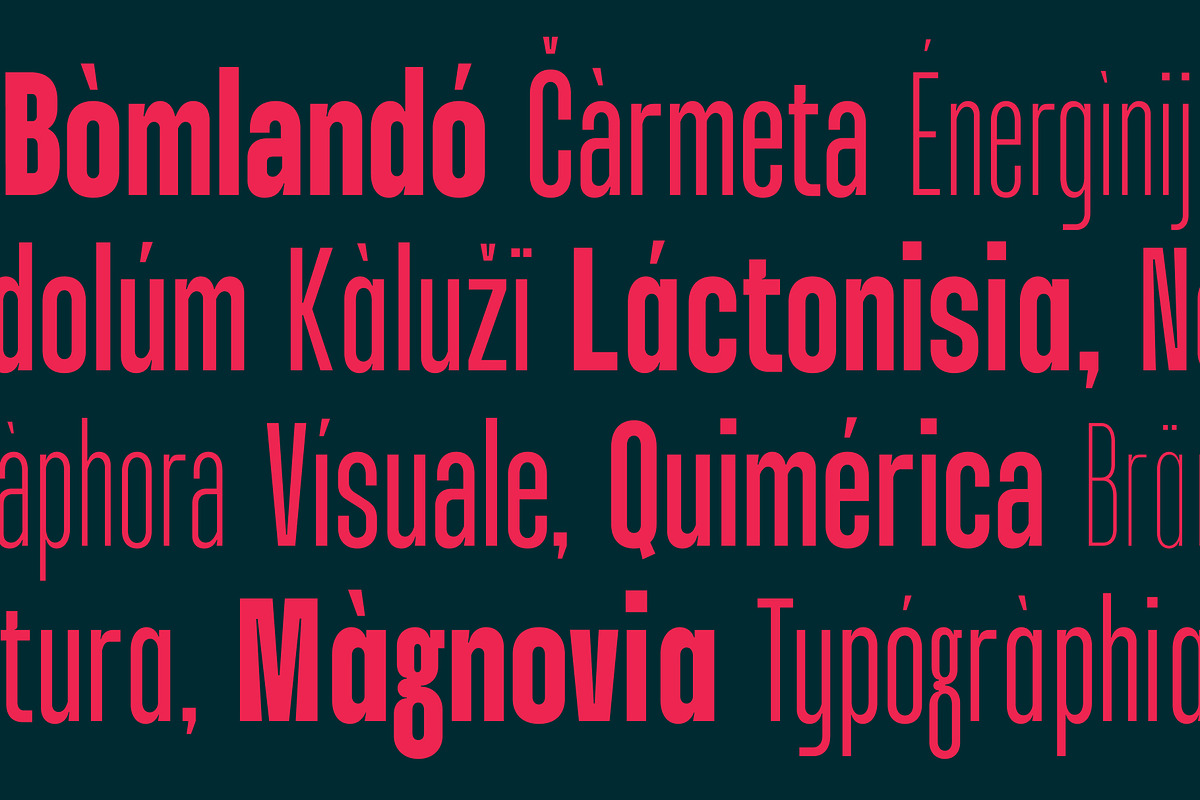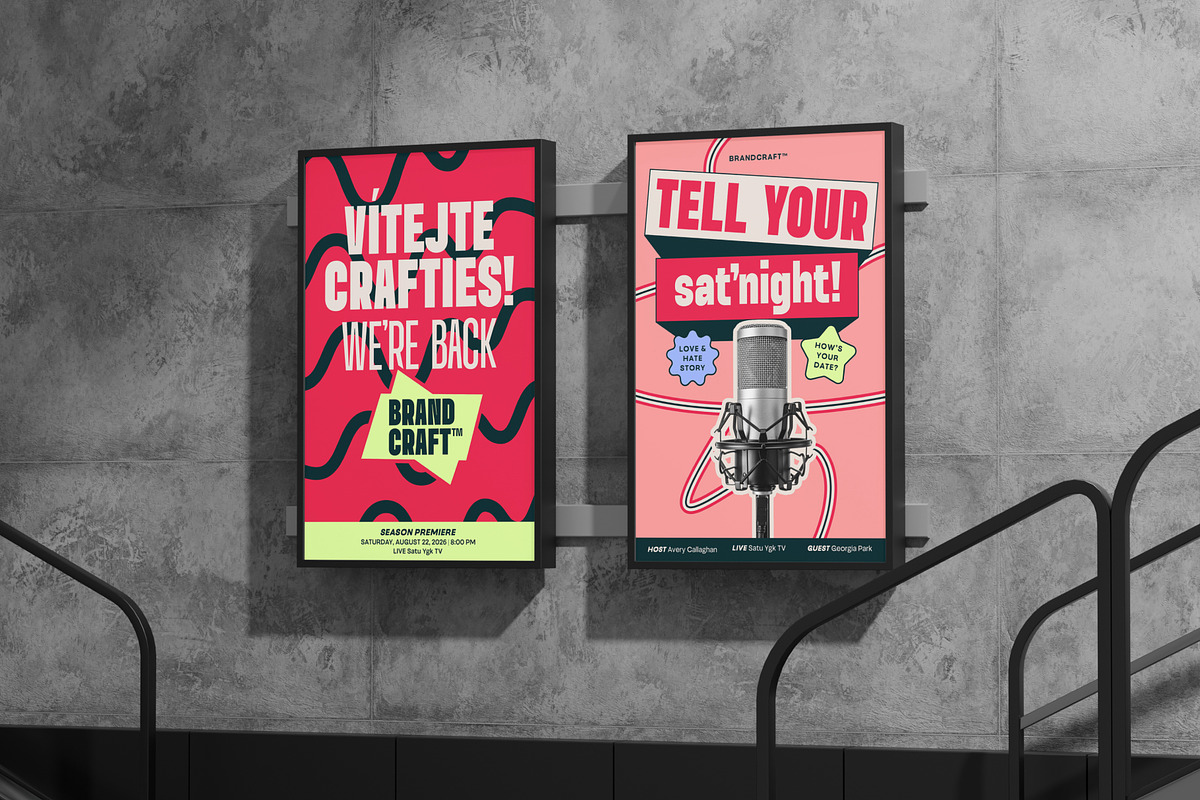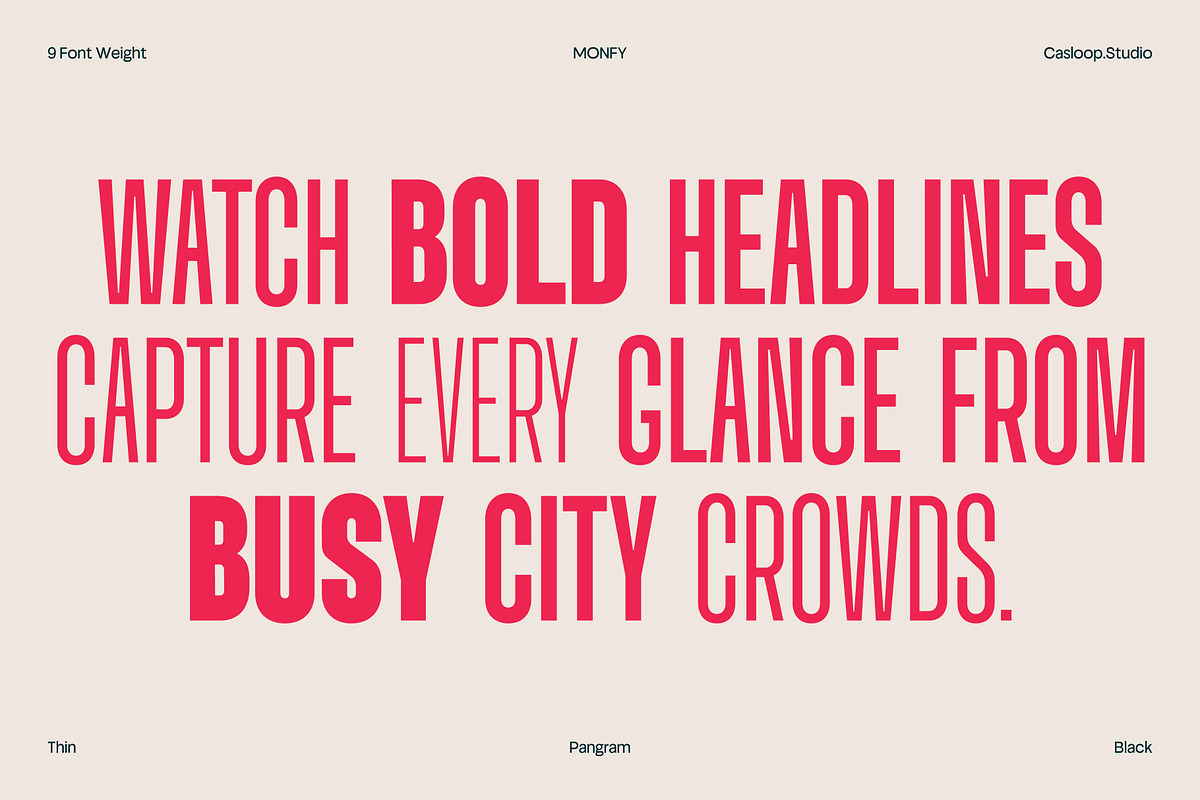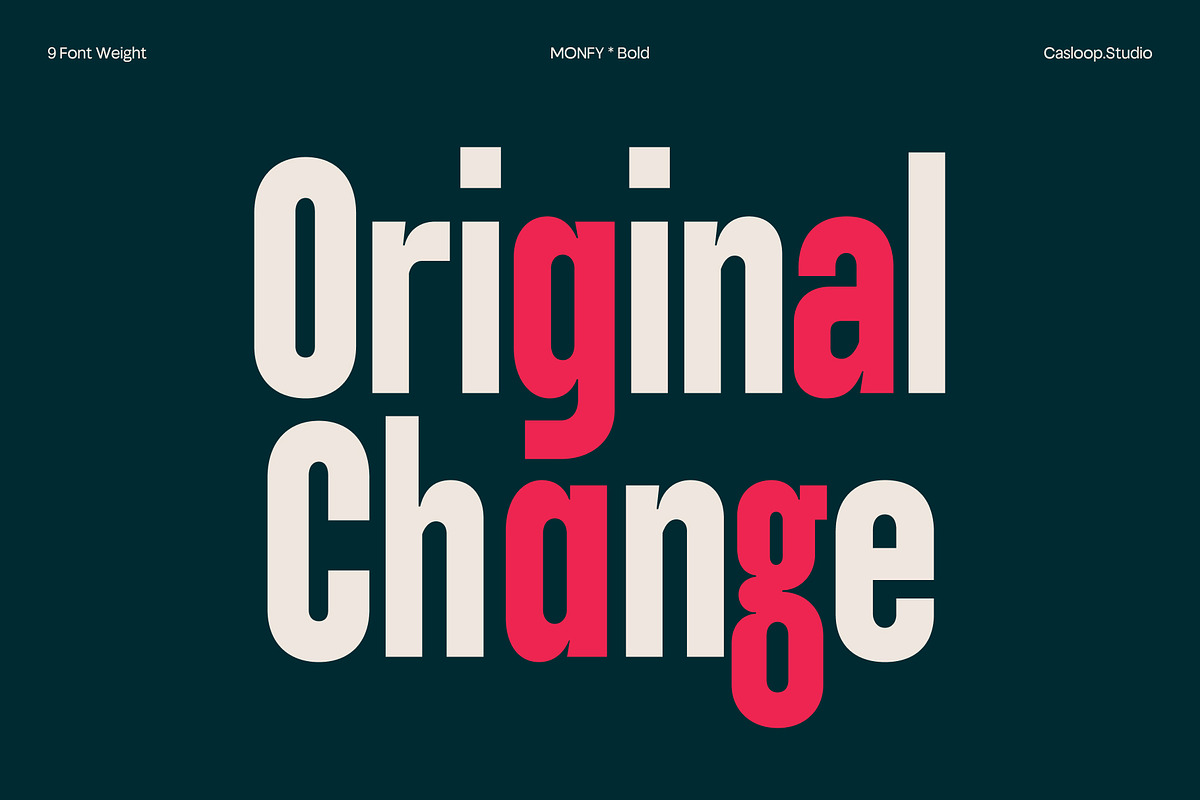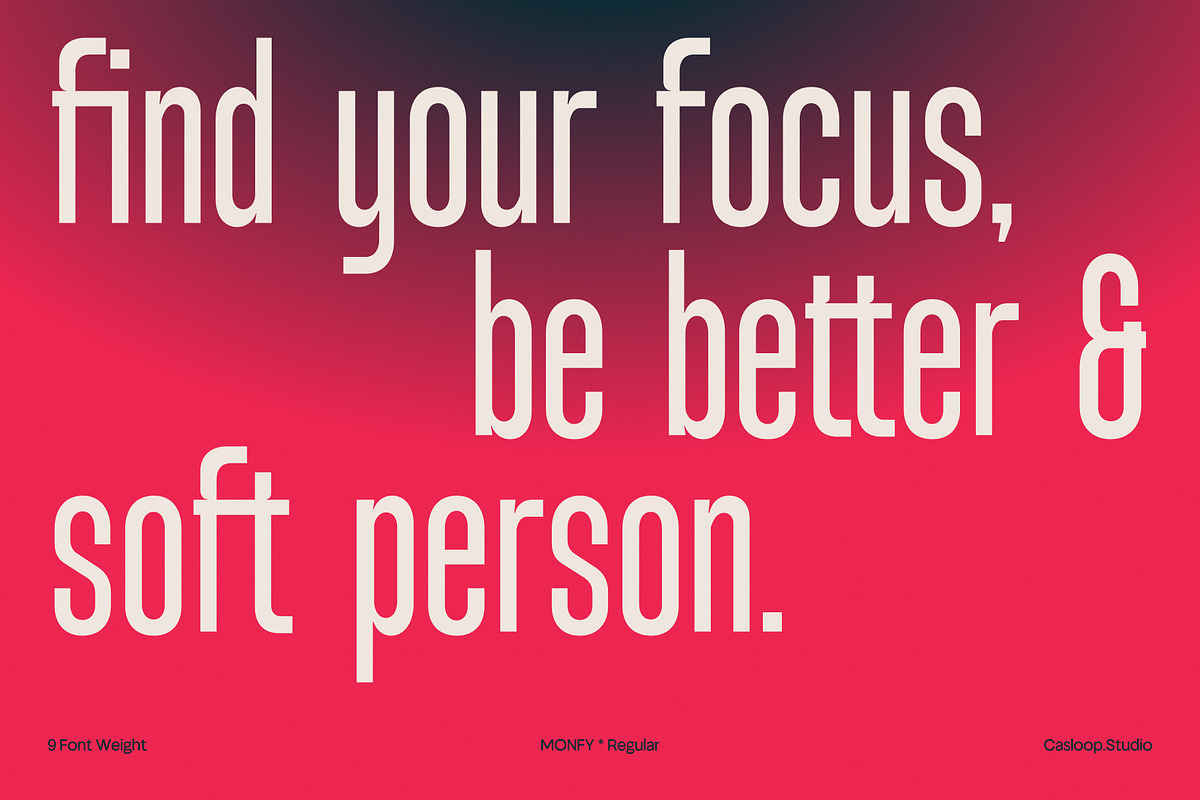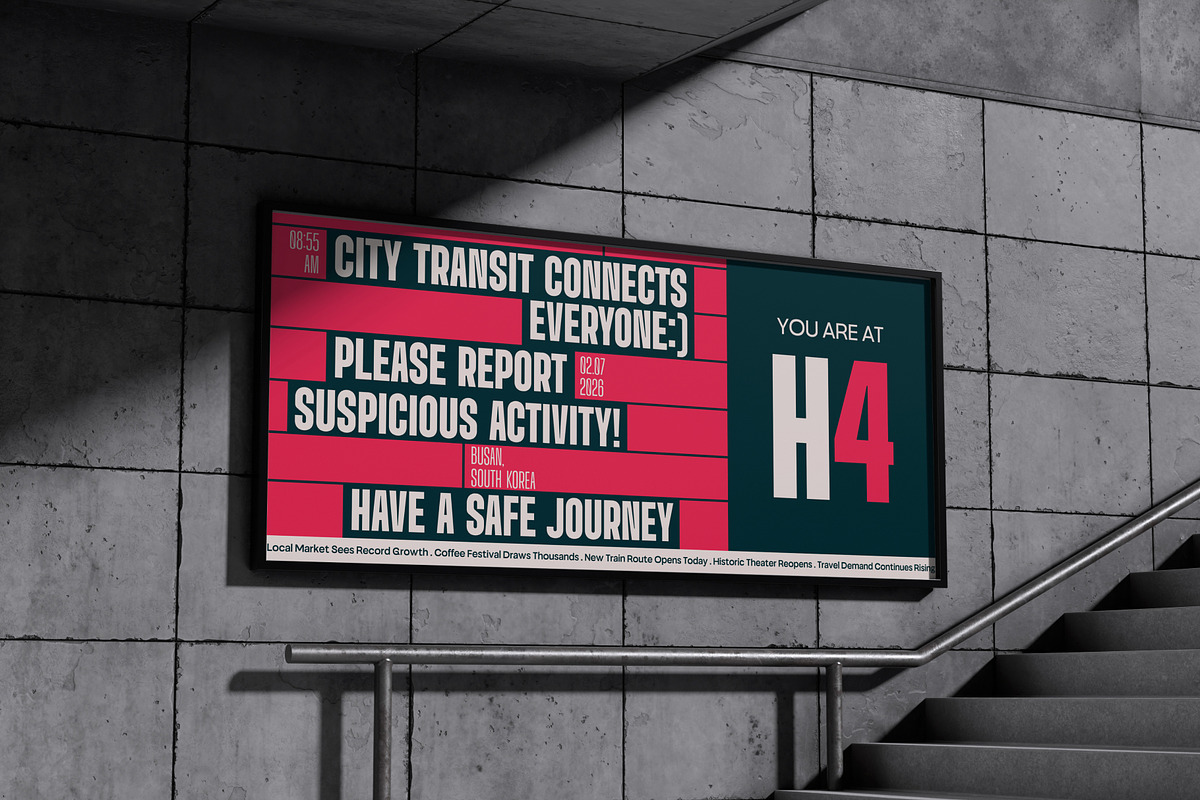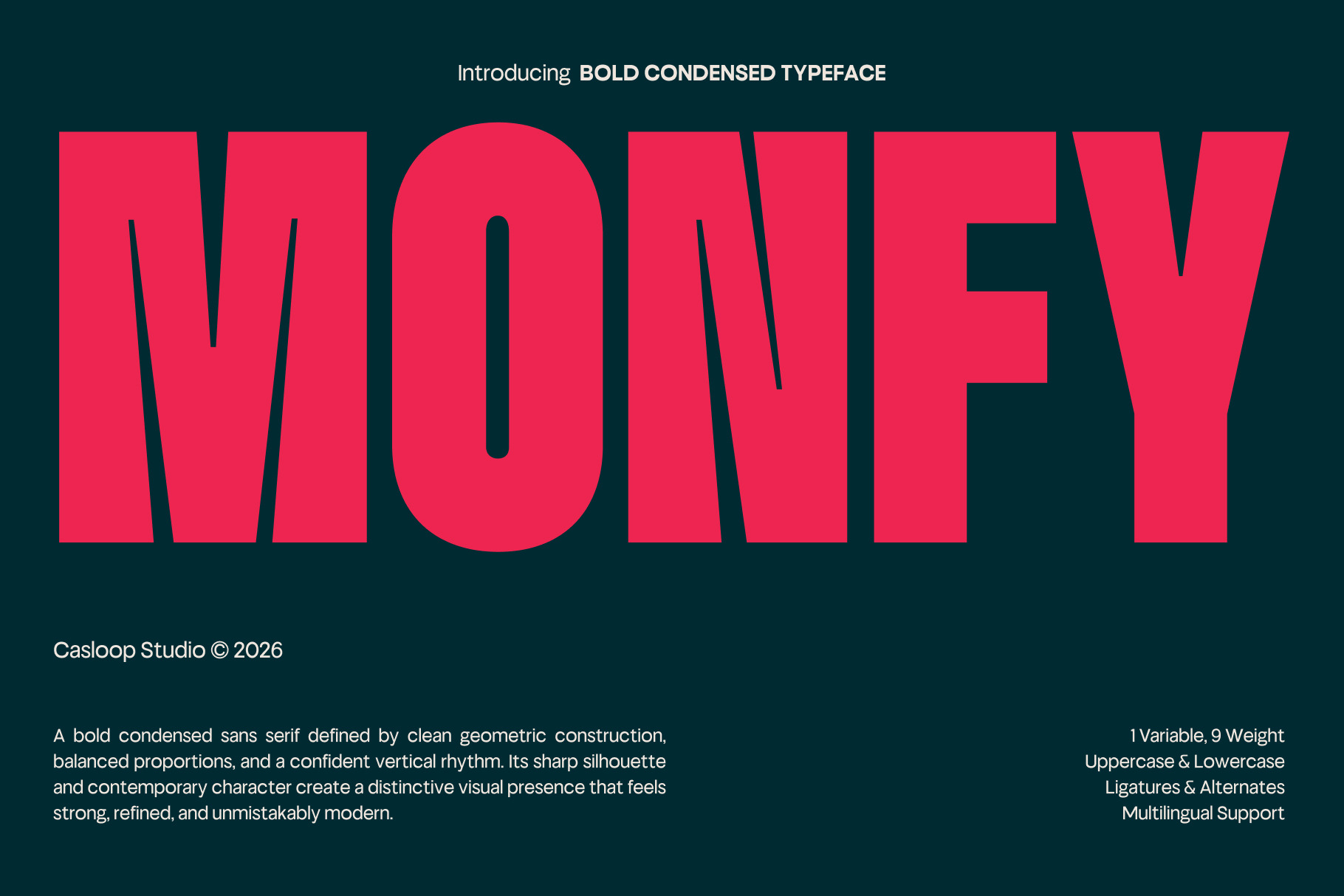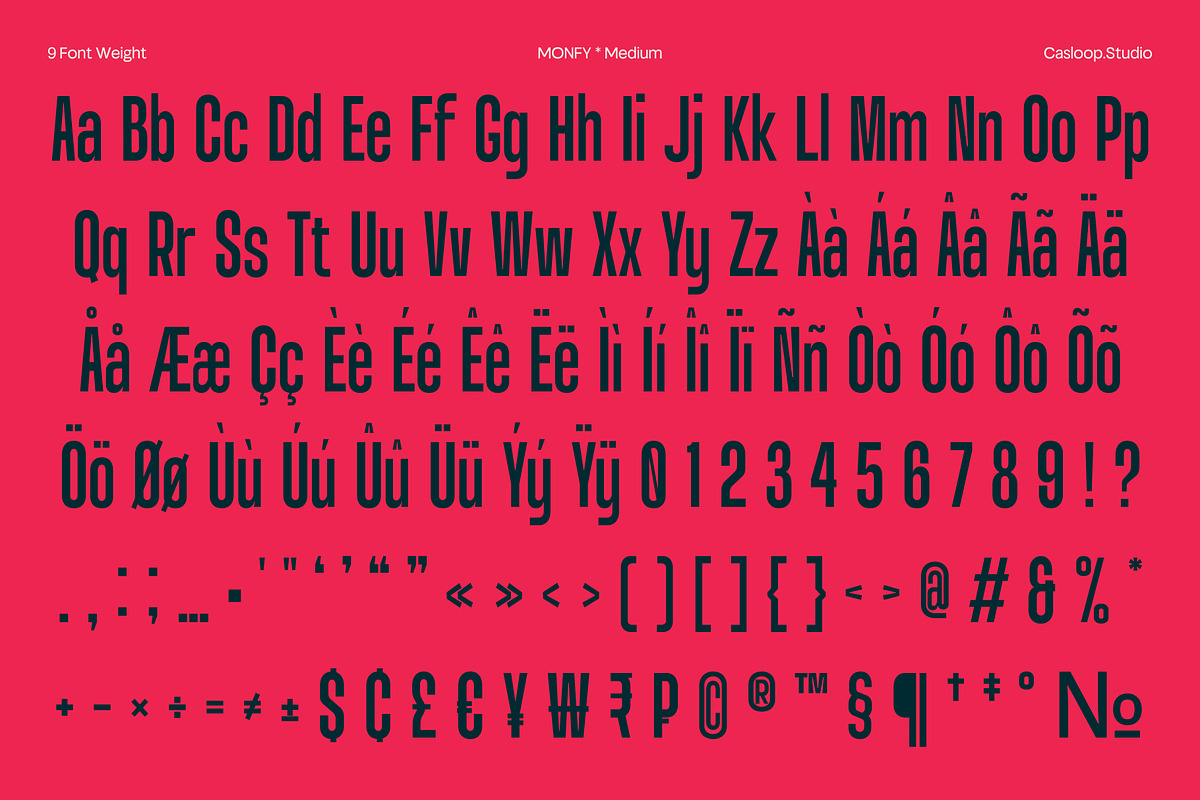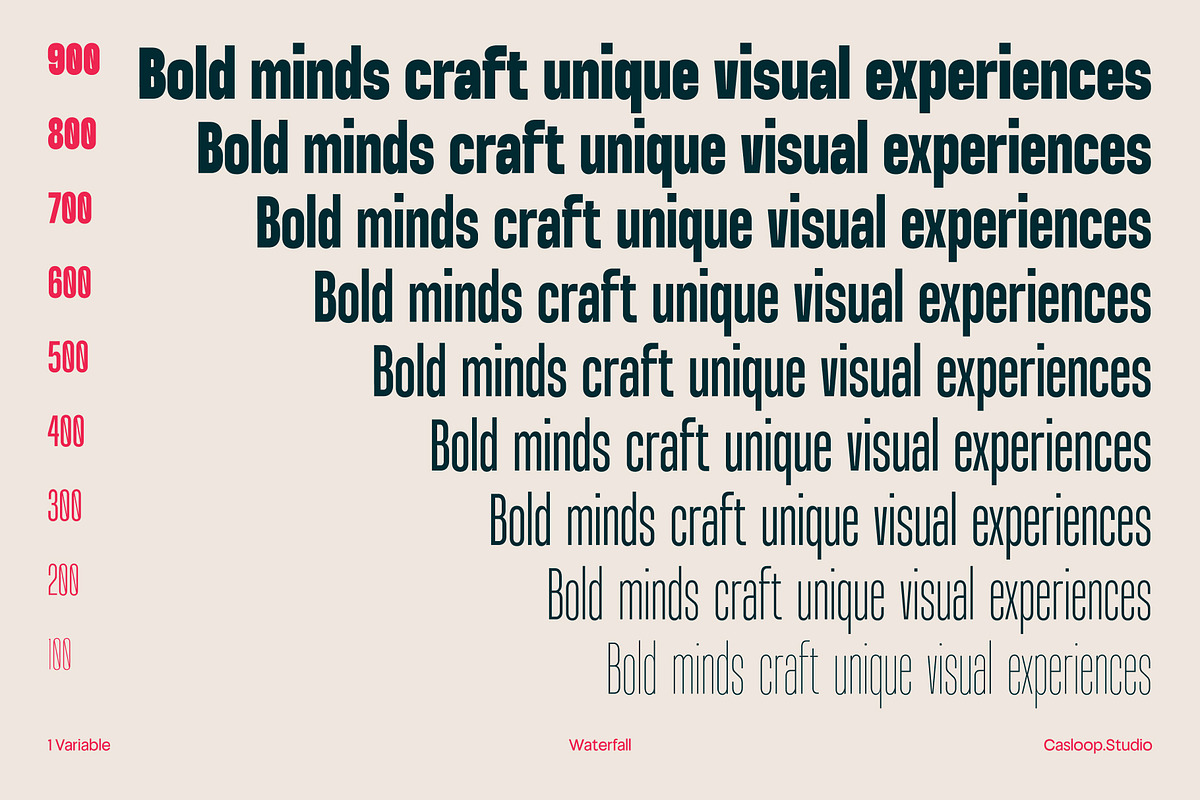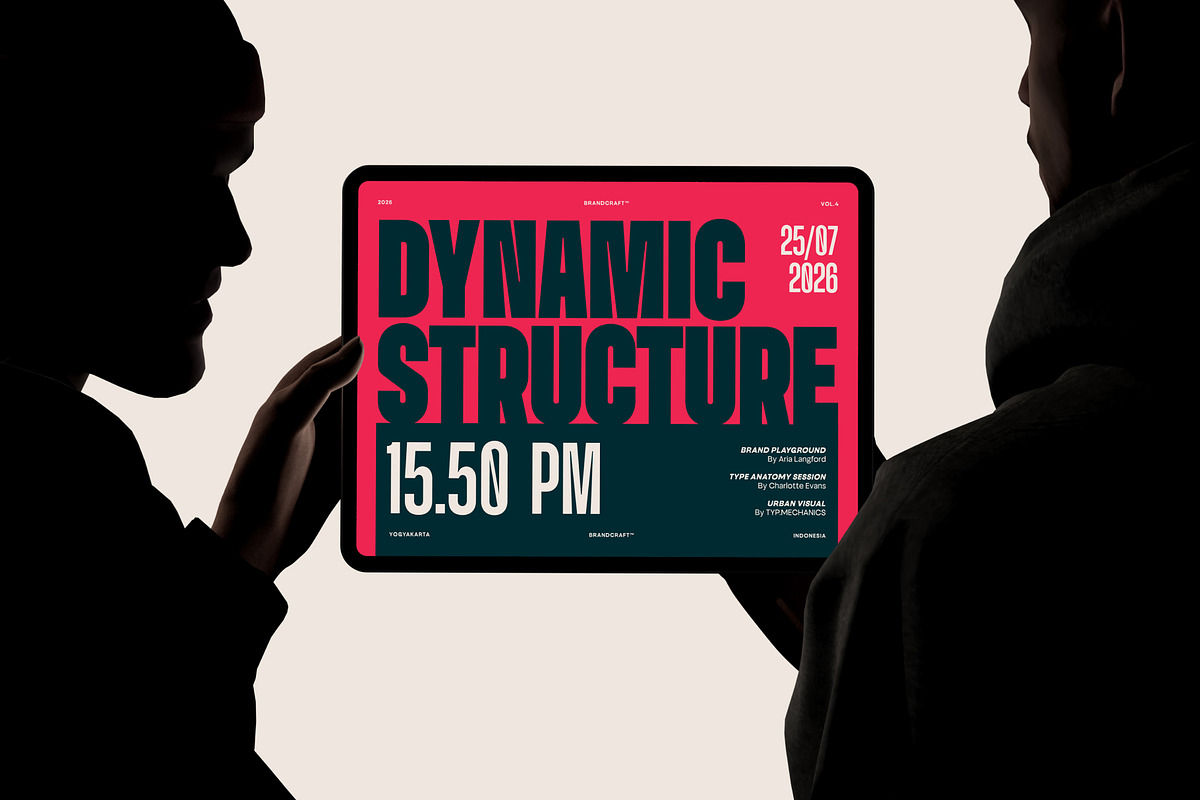
Monfy – Bold Condensed Typeface
Monfy is a bold condensed typeface designed to deliver maximum impact through clean structure and disciplined proportions. Its defining characters A, G, R, M, S, and T establish the typeface's identity with strong condensed silhouettes, precise vertical proportions, and refined sans serif forms that create a dense yet balanced visual rhythm. The result is a sharp, authoritative typeface that remains highly legible while projecting confidence and modernity. With its versatile 9-weight family, Monfy is an excellent choice for headlines, branding, logotypes, editorial design, and visual identities that demand a bold presence with contemporary precision. Recommended pairing with Inter, Barlow Condensed, Archivo Narrow, Helvetica Neue, Univers, DIN
Uppercase & Lowercase,
Numbers and punctuation,
Ligatures & Stylistic Alternates Characters
Multilingulal Support : Bosnian, Catalan, Czech, Danish, German, English, Spanish, Estonian, Finnish, French, Irish, Croatian, Hungarian, Icelandic, Italian, Lithuanian, Latvian, Dutch, Norwegian, Polish, Portuguese, Romanian, Slovak, Slovenian, Albanian, Swedish, Turkish.